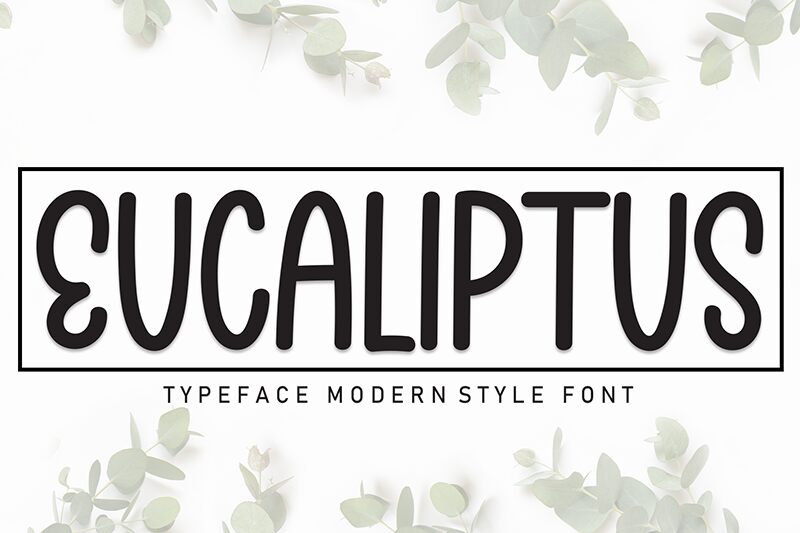
Eucaliptus
Eucaliptus font by Andi Moz offers a condensed handwritten design with an organic and expressive feel. This friendly and casual display of letters provides the right vibes needed for professional work with a modern appeal, this free handwritten font features letters written at different angles that give each word a genuine human-like appearance.
Use Eucaliptus font in package creativity, clothes branding and designing projects, logotypes, tags and labels, typography art projects, blog headlines and posts titles. Build your website or app interface using this unique set as well as social media posts that will be appealing to clients.